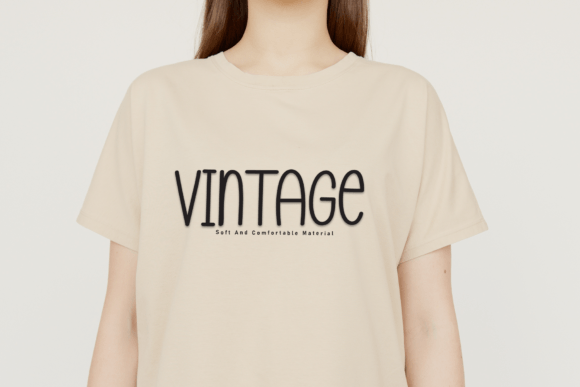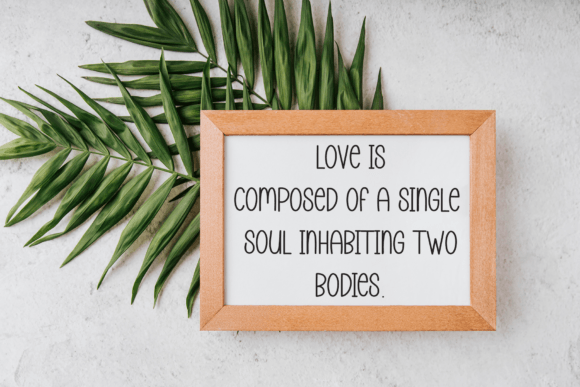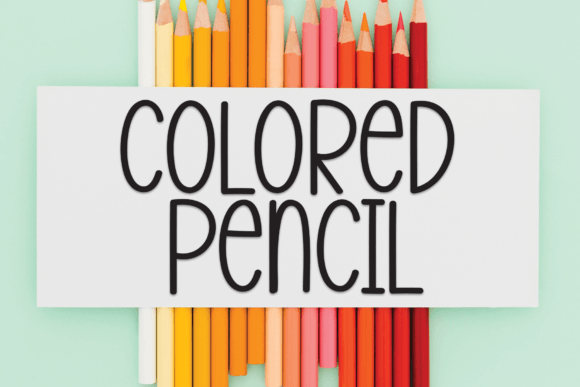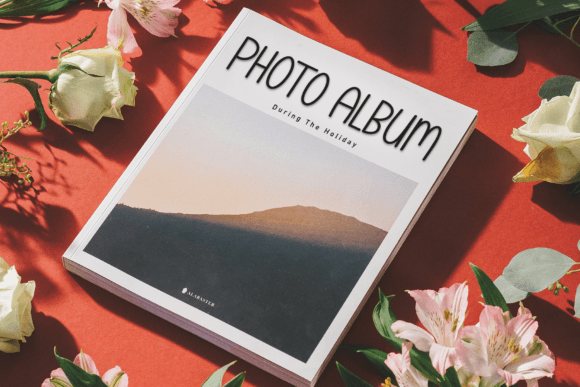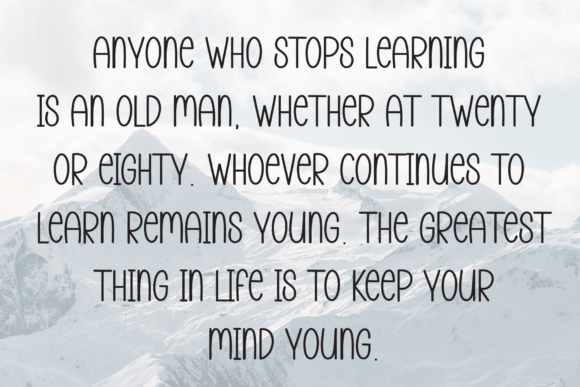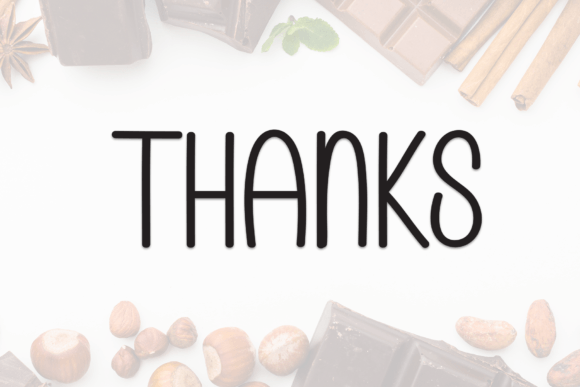
The Sweet Spot: Discovering the Charm of Chocolate Font
I’ll never forget the time I was working on a project for a client who wanted a custom branding package that screamed “whimsical” and “friendly.” I had spent hours scouring font libraries, but nothing seemed quite right. That was until I stumbled upon Chocolate Font. Its unique, handwritten style instantly clicked with me, and I knew I had found the perfect fit. In this article, I’ll share my love for Chocolate Font, its features, and how to make the most of it in your designs.
An Honest Review: The Good and the Quirky
What I Love About Chocolate Font ✨
- ✅ Natural and Unique Style: Chocolate Font boasts a sweet and friendly appearance that makes it incredibly versatile for various design projects.
- ✅ Easy to Read: Despite its handwritten nature, Chocolate Font is surprisingly legible, even at smaller sizes.
- ✅ OpenType Features: Chocolate Font comes with a range of OpenType features, including stylistic alternates and glyphs, which allow for a high degree of customization.
- ⚠️ Limited Formality: Chocolate Font’s playful nature makes it less suitable for formal or corporate designs.
- ⚠️ Kerning Issues: As with any font, you may encounter kerning issues, especially when using all caps or mixing with other fonts.
Exploring Alternatives: Similar Fonts to Chocolate Font
If you love Chocolate Font but want to explore other options, consider these similar fonts:
- Kristi: A playful, handwritten font with a similar feel to Chocolate Font. Ideal for children’s projects or whimsical branding.
- Alex Brush: A elegant, cursive font with a more refined appearance. Suitable for luxury brands or high-end designs.
- MGreat Vibes: A fun, modern script font. Great for creative projects or social media graphics.
- Pacifico: A beautiful, elegant script font. Perfect for designs that require a touch of sophistication.
The Story Behind Chocolate Font: Designer Inspiration
Chocolate Font was created with the intention of capturing the warmth and playfulness of handwritten text. Its designer aimed to craft a font that felt both approachable and unique, perfect for designs that needed a personal touch. While the real story behind Chocolate Font might be fictional, its impact on the design community is very real.
Q: What type of projects is Chocolate Font best suited for?
A: Chocolate Font is versatile and can be used for a wide range of projects, including branding, packaging, social media graphics, and more. Its playful nature makes it particularly well-suited for designs aimed at children or young adults.
Q: Does Chocolate Font support OpenType features?
A: Yes, Chocolate Font comes with OpenType features, including stylistic alternates and glyphs. These features allow for greater customization and flexibility in your designs.
Q: Is Chocolate Font suitable for body text?
A: While Chocolate Font is primarily designed for display purposes, it can be used for short blocks of body text. However, for longer texts, a more traditional font might be more readable.